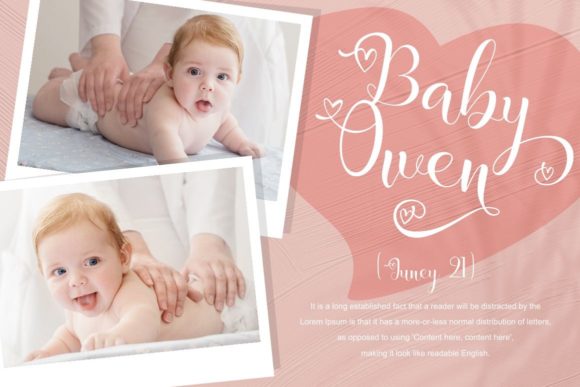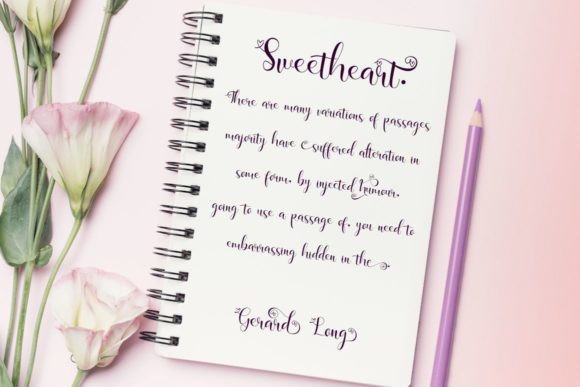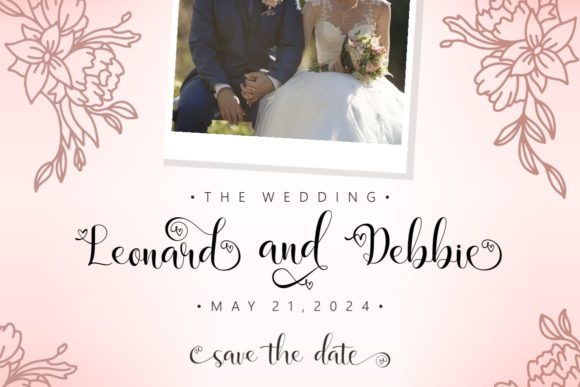
Introduction to Marithe Font
Have you ever been stuck on a creative project, scrolling through countless design resources, searching for the perfect font to elevate your work? It’s a moment we’ve all been in – staring at a blank canvas, wondering what will bring our vision to life. For designers, the right font can be the missing piece that takes a project from good to great.
Enter the Marithe Font, a stunning script font that’s sure to captivate your audience. Its elegant design and high-quality aesthetic make it a valuable addition to any designer’s toolkit. With its transparent background and versatility, the Marithe Font is the perfect choice for designers looking to create beautiful, high-quality designs.
Key Features of Marithe Font
- High-quality font with a transparent background, ideal for creative projects that require a modern and stylish look.
- Includes a wide range of characters, including uppercase and lowercase letters, numbers, and punctuation marks.
- Unique characteristic: Marithe Font features a unique blend of modern and vintage elements, making it perfect for creating a distinctive and eye-catching visual identity.
Honest Review: Marithe Font
As a designer, I’m always on the lookout for high-quality fonts to enhance my creative projects. Recently, I came across Marithe Font, and I was excited to try it out.
Here are some things that work well with Marithe Font:
- ✨ Beautiful, elegant script design
- ✨ Easy to read, even in small sizes
- ✨ Versatile and can be used for a variety of projects
- ⚠️ Limited character set, which can make it difficult to use for longer texts
- ⚠️ Not ideal for bold or dramatic designs, as it can come across as too elegant
Overall, I would say that Marithe Font is a great addition to any designer’s collection. While it may have a few limitations, its high quality and beautiful design make it a valuable resource for creative projects.
The Marithe Font is a versatile design resource that can be used for a wide range of creative projects, including:
- Presentation design
- Brochure design